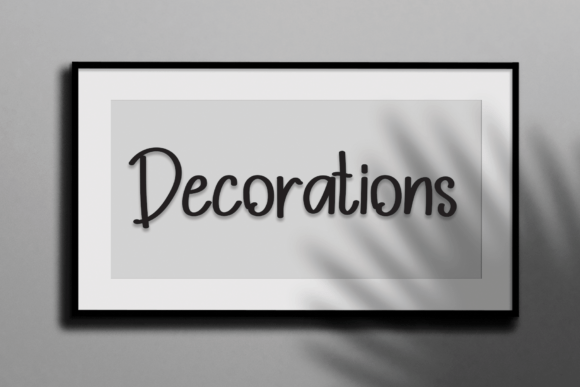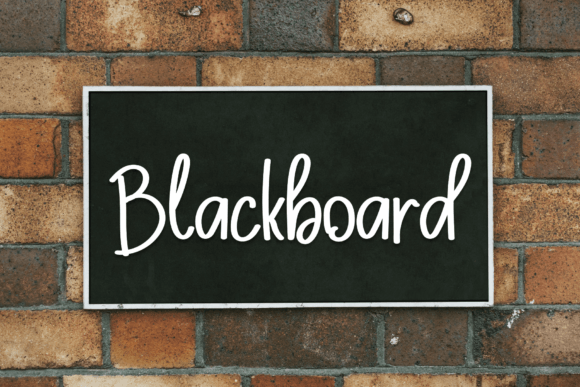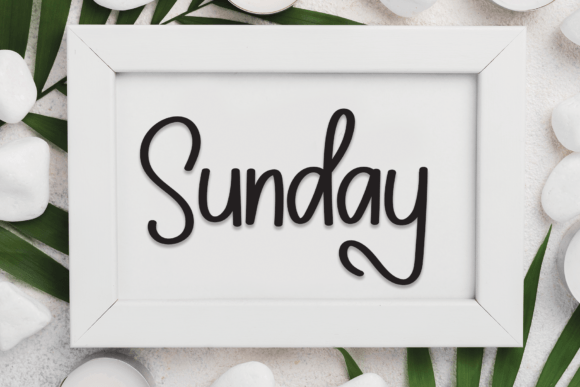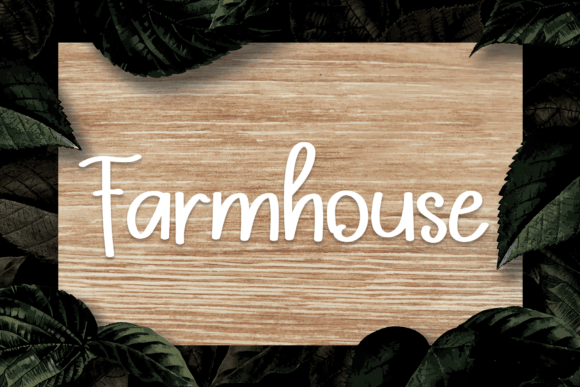
Abound Font
The Abound Font Download is a fun and friendly handwritten typeface that adds charm and personality to any project. Its casual strokes and natural handwritten flow make it both approachable and stylish. Because of its versatile nature, Abound is an excellent choice for crafts, greeting cards, branding, and digital content.
Abound Handwritten Script with Personality
Abound captures the natural beauty of handwriting while staying clear and easy to read. Unlike fonts that focus only on decoration, this Abound handwritten font blends creativity with practicality. As a result, it is suitable for projects that need to look warm and professional at the same time.
Perfect for Crafts and DIY Projects
Crafters enjoy fonts that feel handmade yet polished. For example, the Abound Font works well for scrapbooking, embroidery patterns, wall art, and decorative tags. Moreover, it helps turn simple DIY designs into eye-catching pieces. Its balanced strokes give projects a heartfelt but refined look.
Greeting Cards and Invitations with Abound Font
Cards and invitations should always feel special. The Abound script font is ideal for birthday greetings, wedding stationery, and thank you notes. In addition, it adds warmth and personality to messages, making them more memorable for recipients.
Digital Design and Social Media Content
In digital design, fonts must be engaging while still easy to read. The Abound Font Download shines in Instagram posts, Pinterest graphics, blog headers, and YouTube thumbnails. Also, it integrates smoothly with Canva, Photoshop, and Illustrator. Therefore, it is a practical choice for designers at every level.
A Friendly Typeface for Presentations
Presentations often benefit from fonts that are creative yet clear. Teachers, students, and professionals can use this Abound typeface to make slides more lively while keeping them easy to follow. As a result, it strikes the perfect balance between casual and professional.
Versatile for Many Creative Projects
One of Abound’s strongest features is flexibility. Instead of fitting just one style, it adapts to crafts, branding, packaging, and even small business logos. The Abound handwritten script ensures a consistent and stylish appearance across both digital and print platforms.
Why Designers Choose Abound Typeface
Designers value fonts that combine charm with usability. Many handwritten fonts lose clarity at smaller sizes, but the Abound handwritten script stays legible without losing its personality. This makes it a reliable option for both professionals and hobbyists.